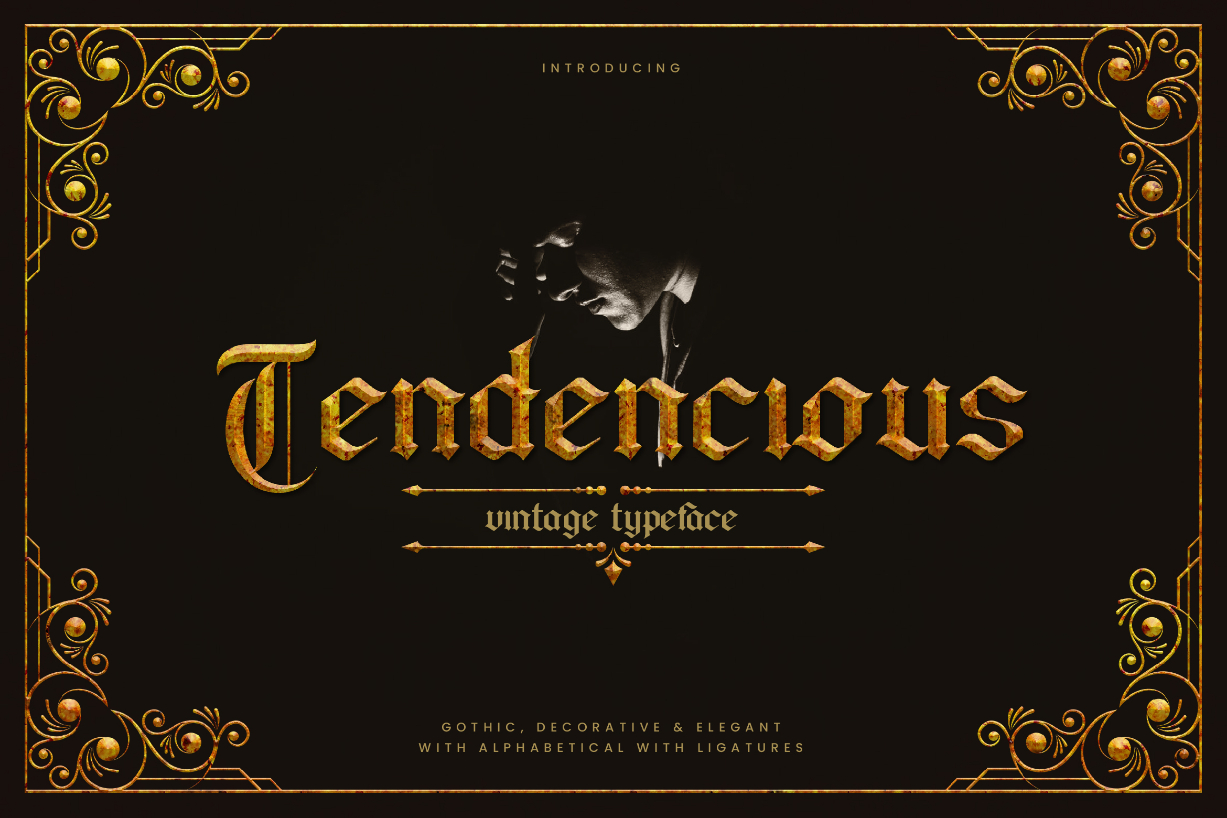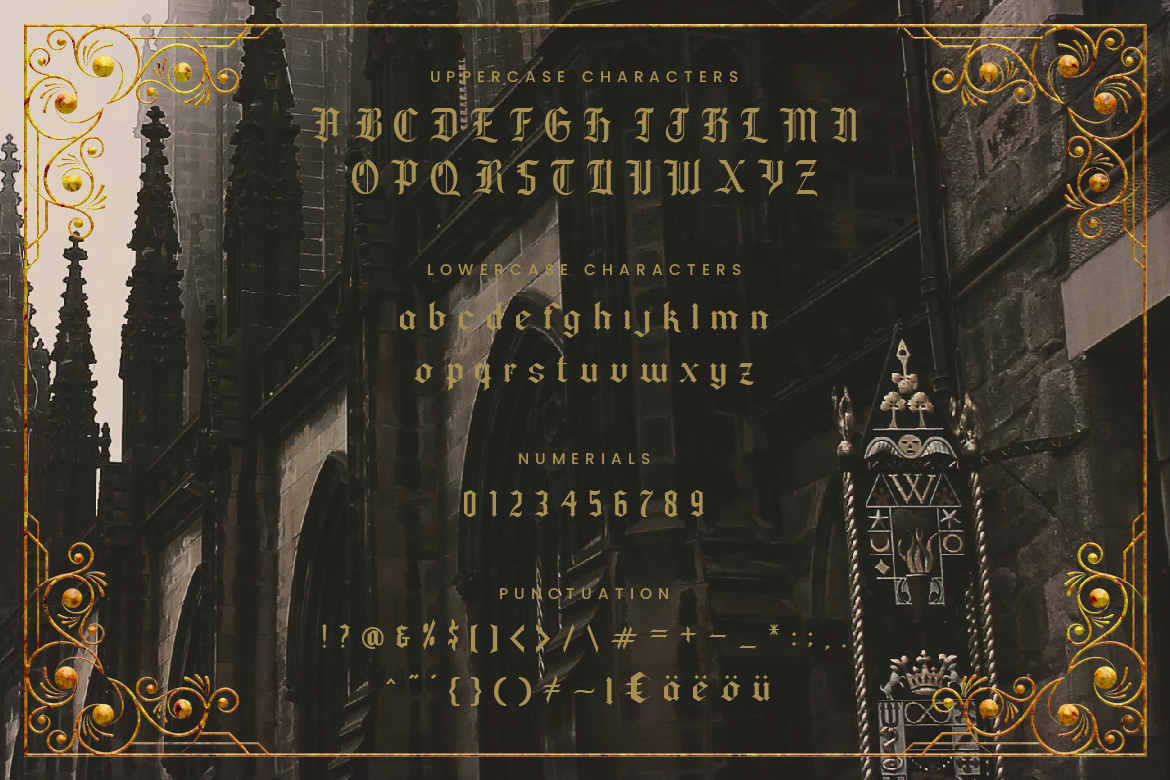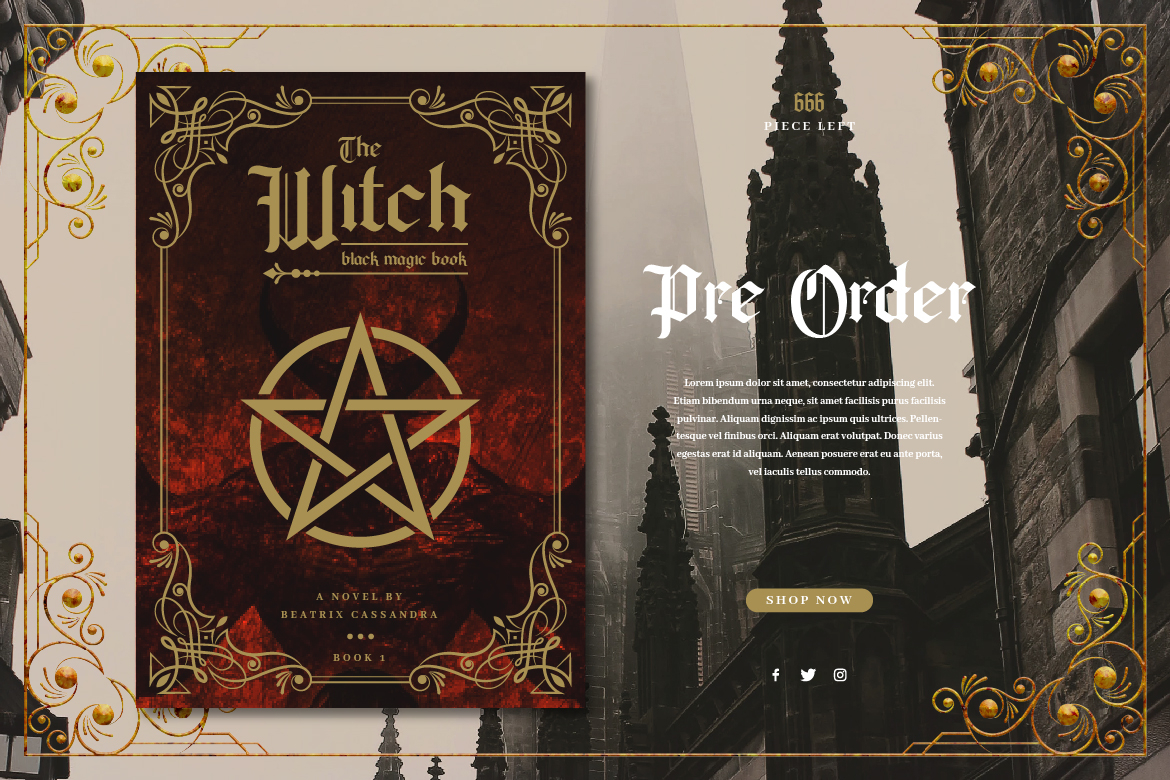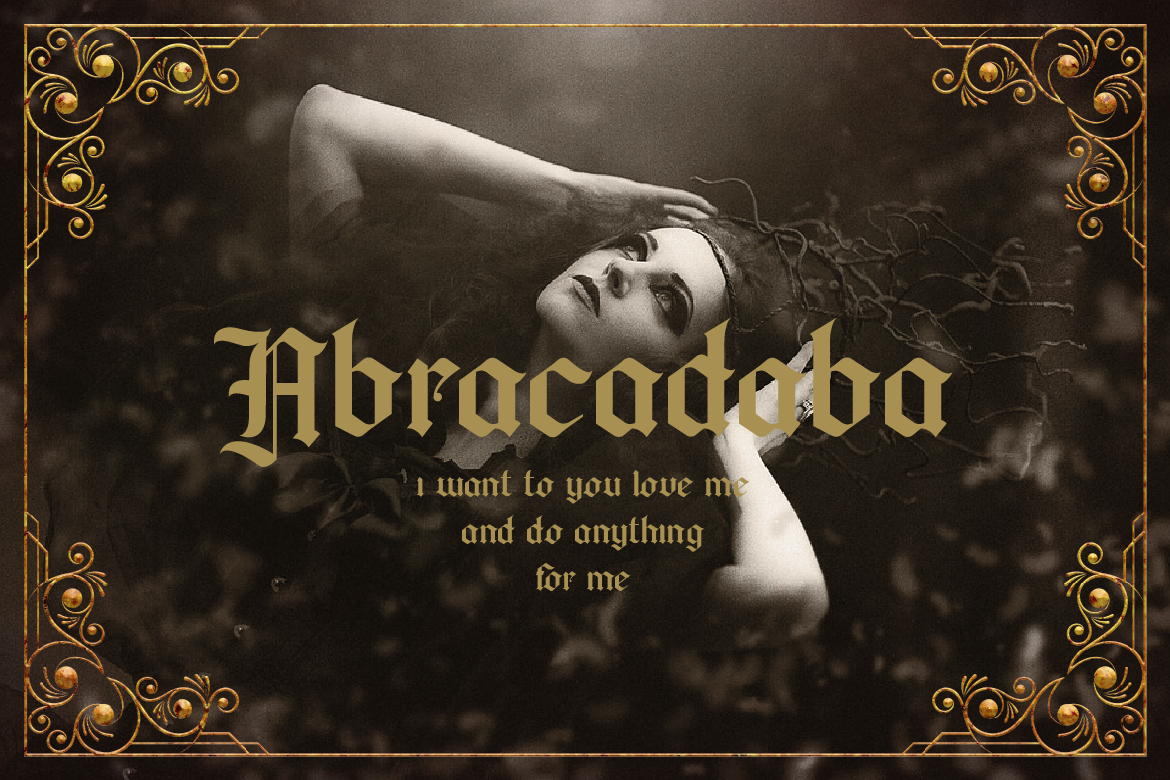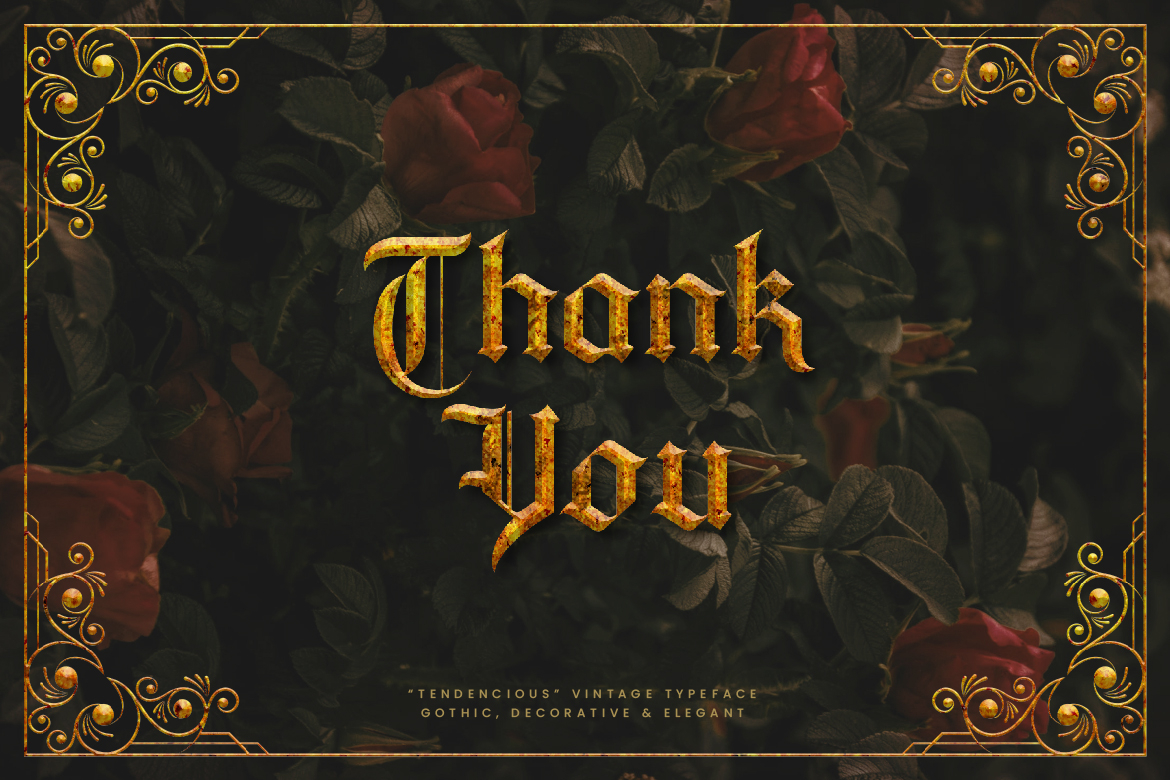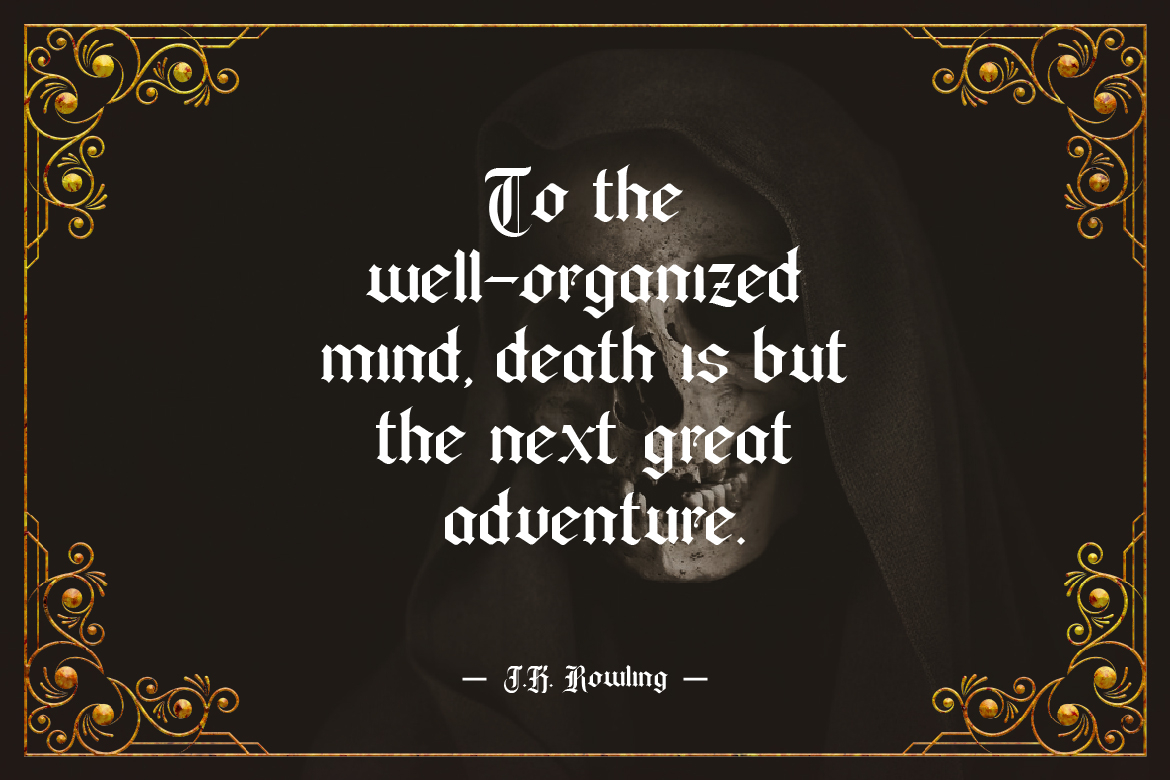
Tendencious Font
About Tendencious Font
Tendencious is an assertive and unique blackletter font. Add this font to your favorite creative ideas and notice how it makes them come alive!